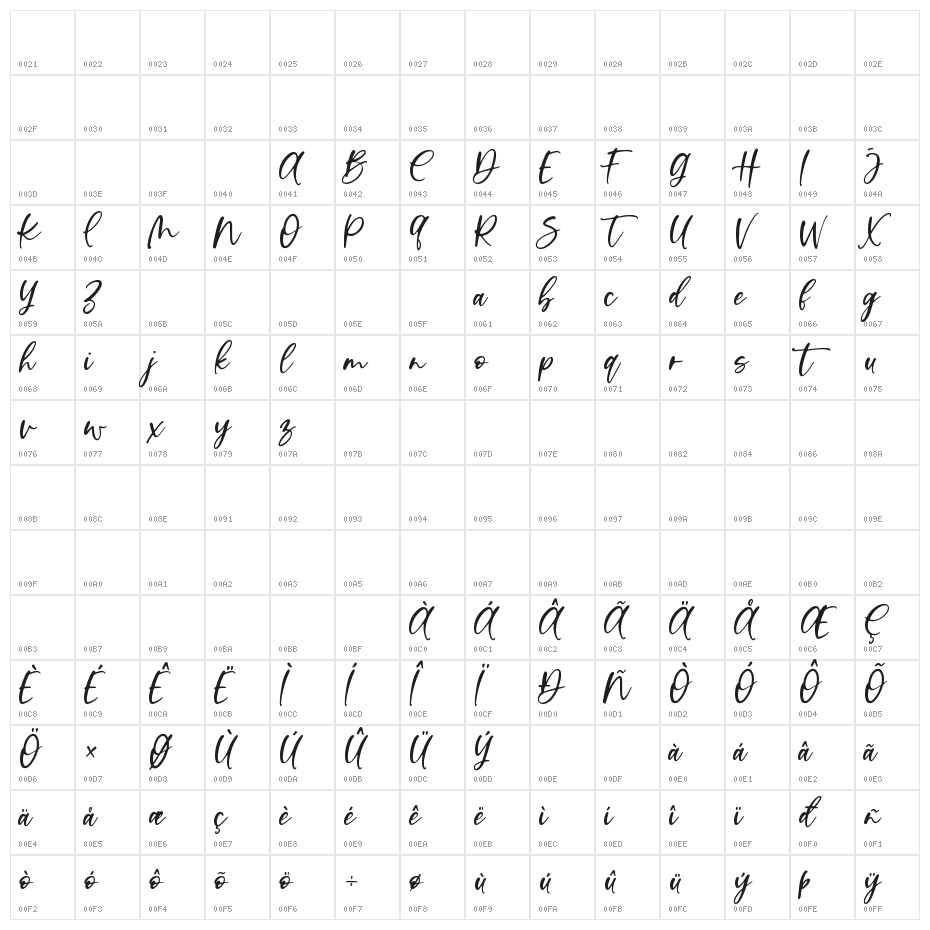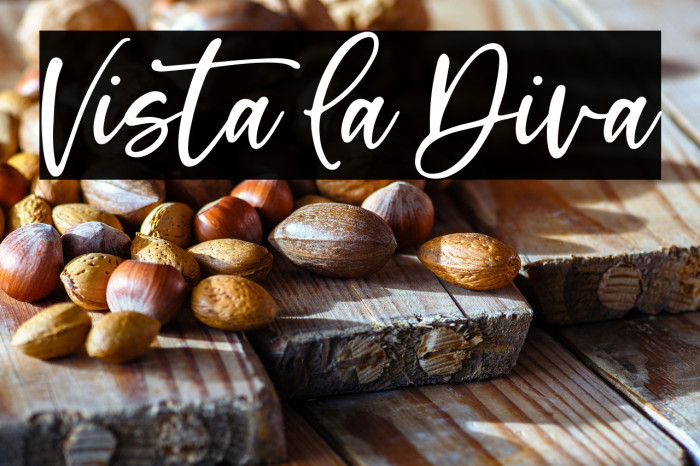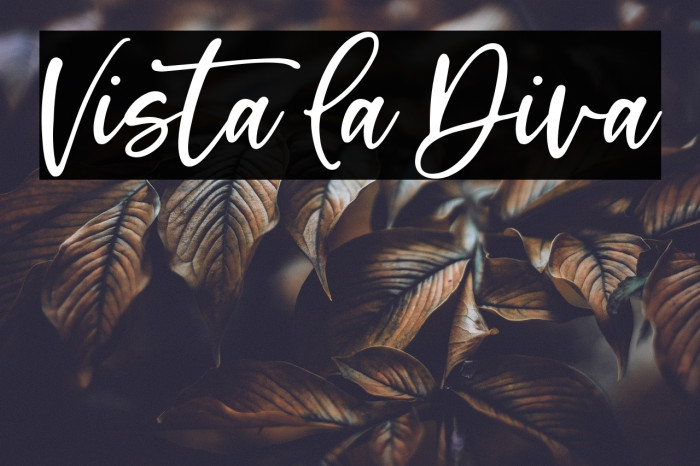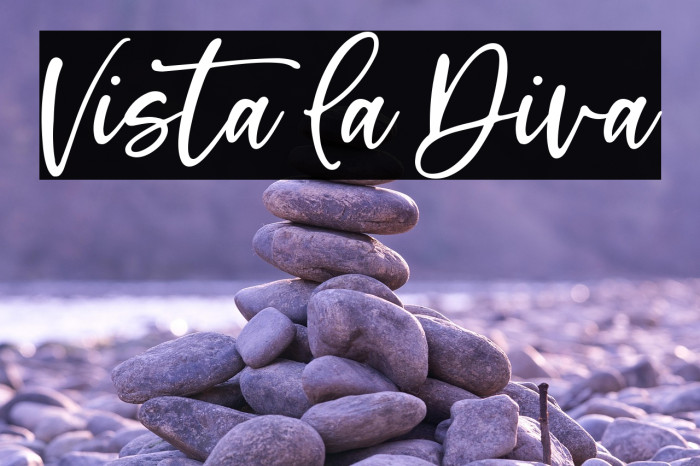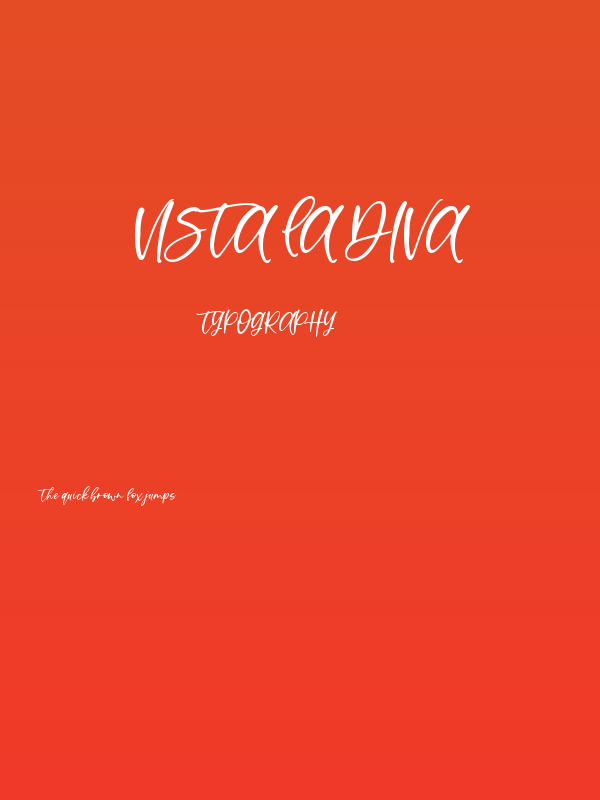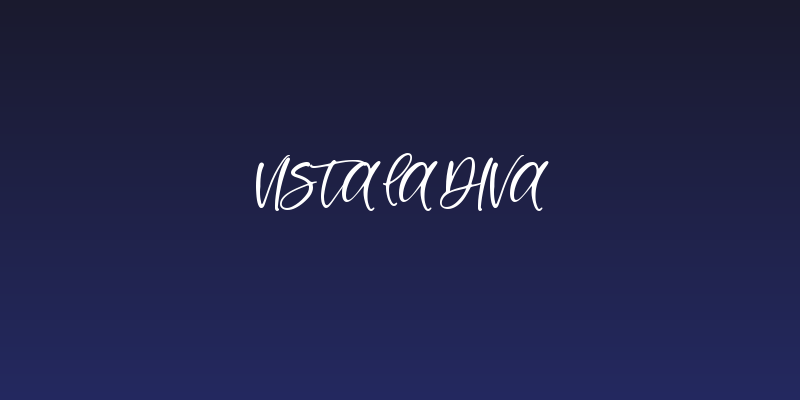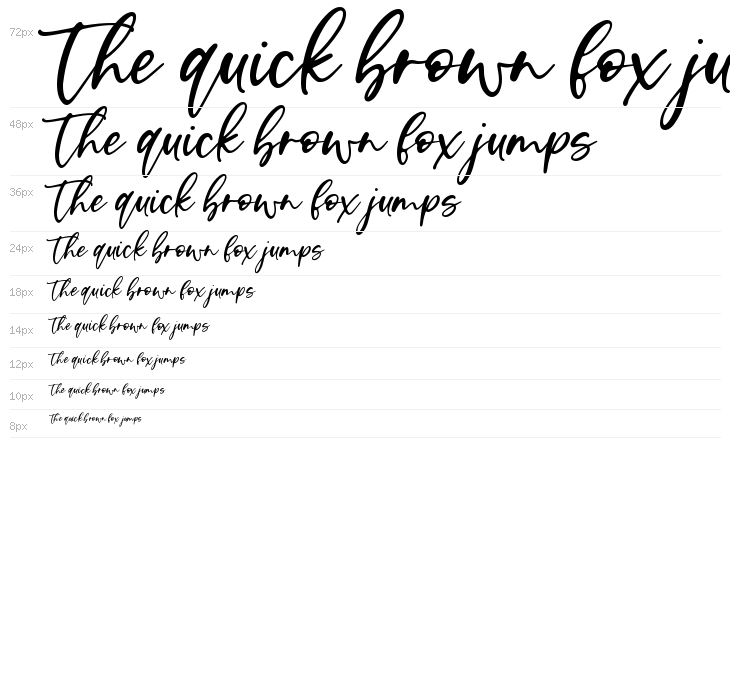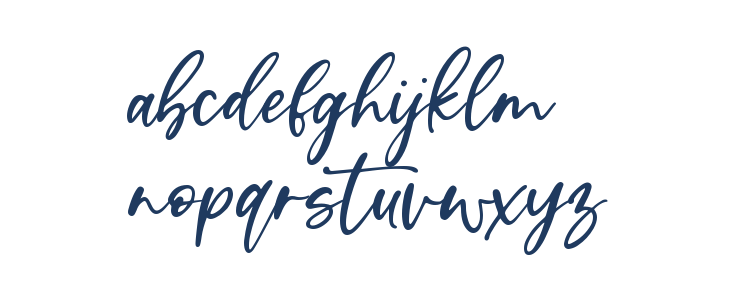
Vista La Diva Font
Vista La Diva Description
This font features a dynamic and expressive handwritten style, characterized by fluid, flowing strokes and a sense of movement. The letters are interconnected, giving it a cursive appearance that is both elegant and casual. The uppercase letters are bold and prominent, while the lowercase letters maintain a consistent flow, enhancing readability. The overall design is modern and artistic, making it suitable for creative projects. The font's playful yet sophisticated nature makes it ideal for invitations, branding, and other design elements that require a personal touch.